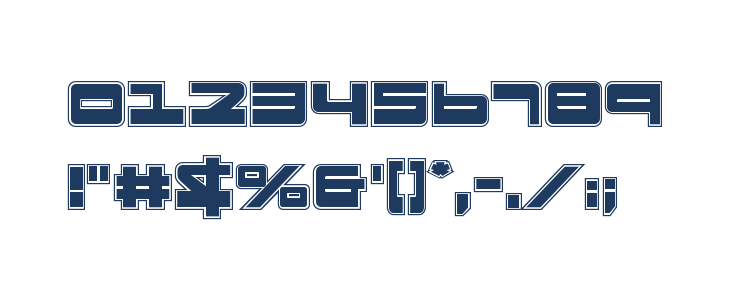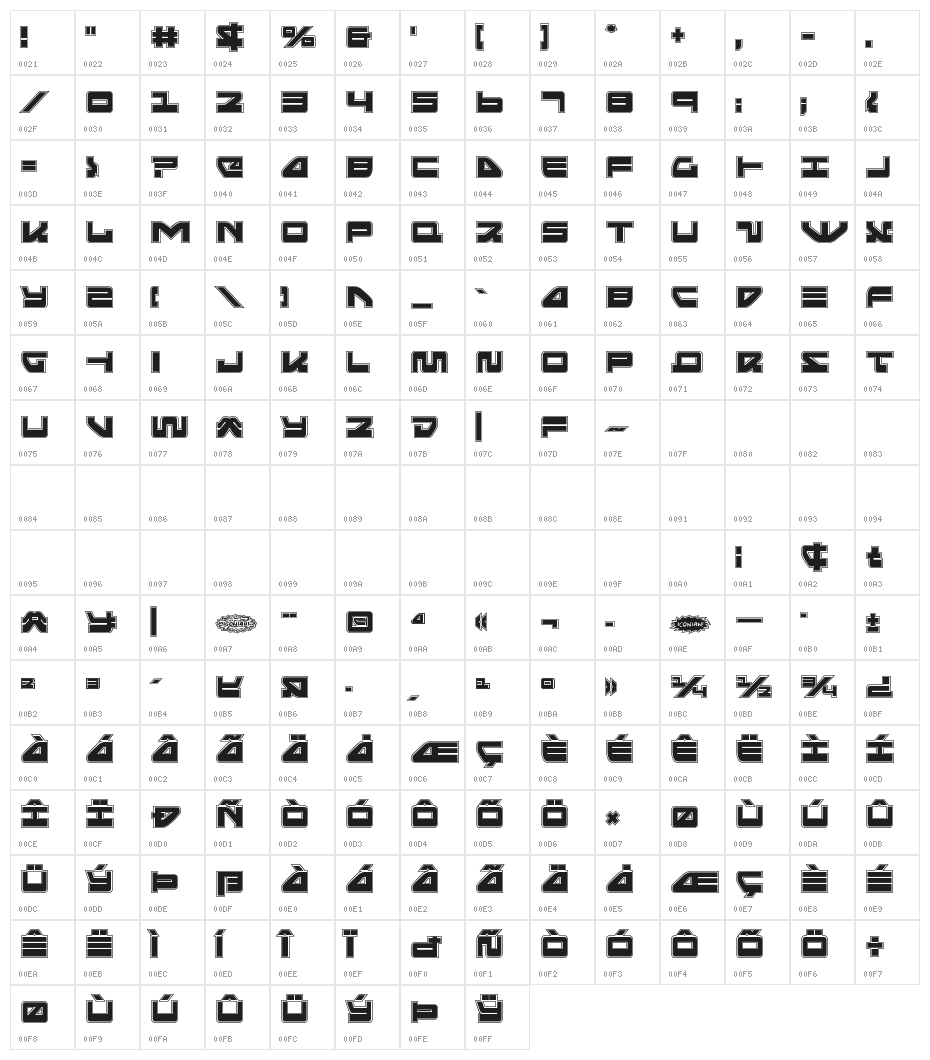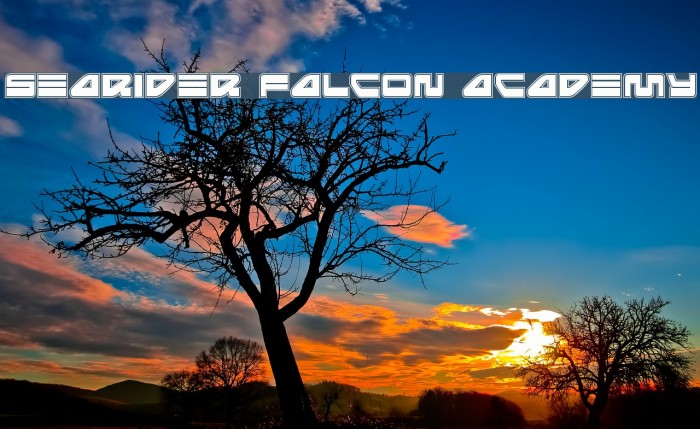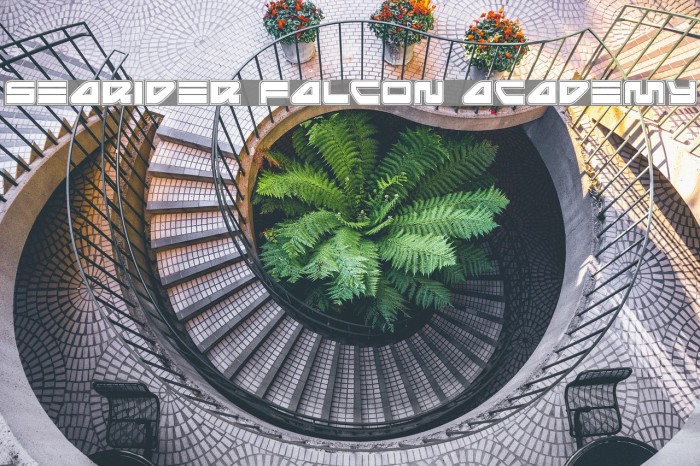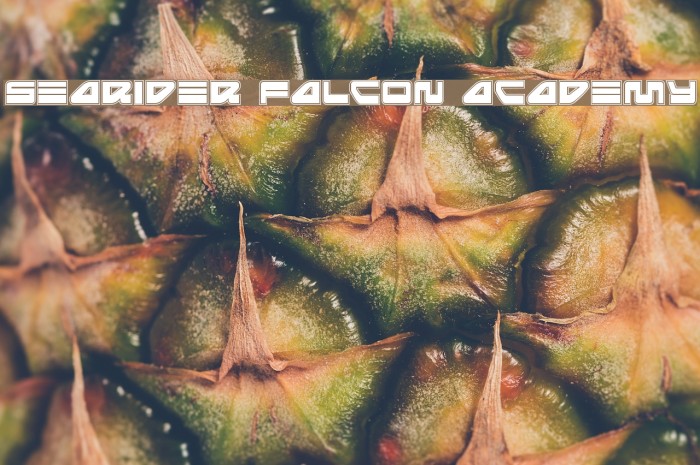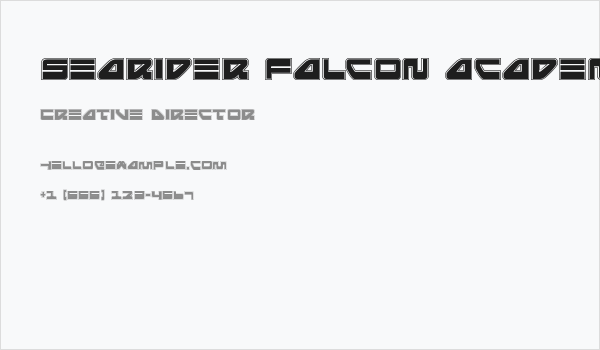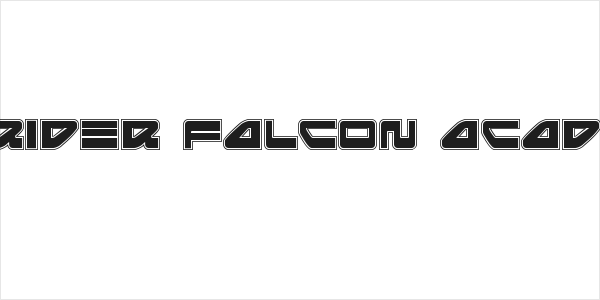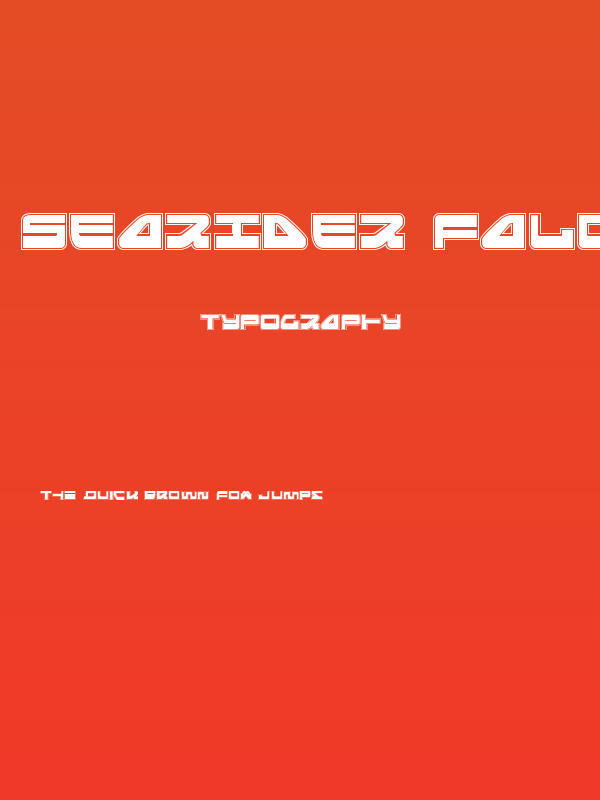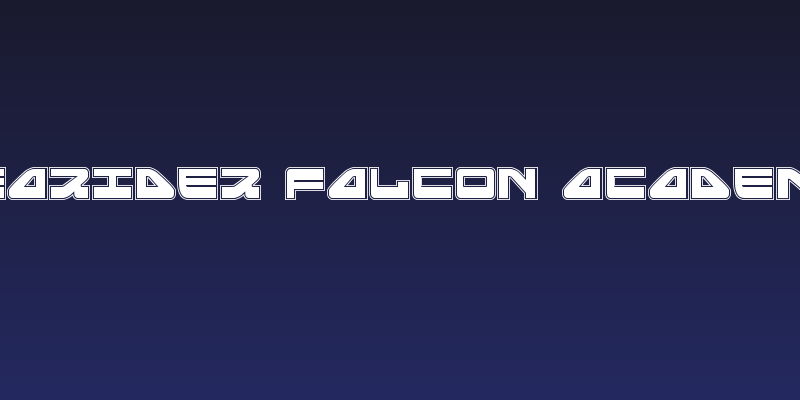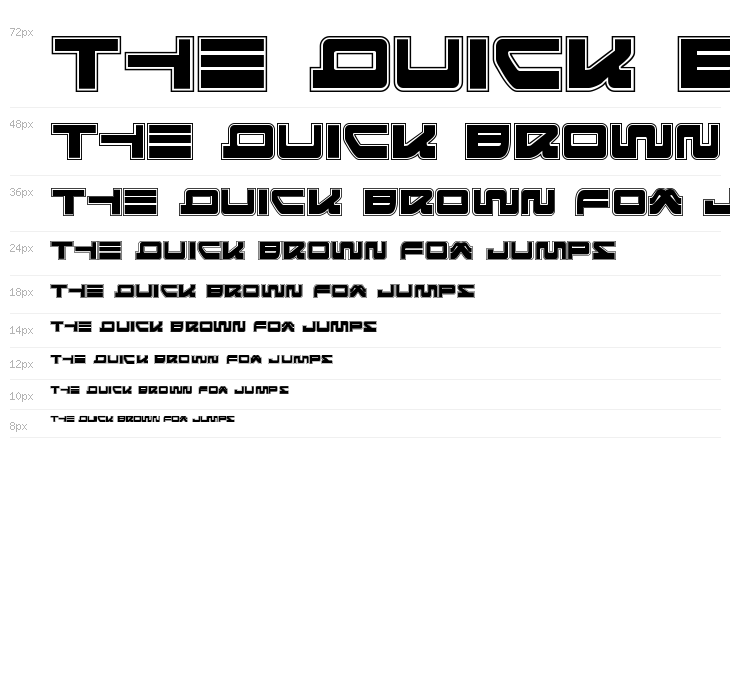
Searider Falcon Academy Font
Searider Falcon Academy Description
This font features a bold, futuristic design with a strong geometric influence. Each character is outlined with a thick border, creating a striking contrast between the inner and outer sections. The letters are angular and stylized, with sharp edges and a sense of movement. The numbers and special characters follow the same design principles, ensuring consistency throughout. This font is ideal for projects that require a modern, tech-inspired aesthetic, making it suitable for digital interfaces, gaming titles, and sci-fi themed designs.
| Proposed Projects | Ideal for digital interfaces, gaming titles, sci-fi themed designs, and tech branding. |